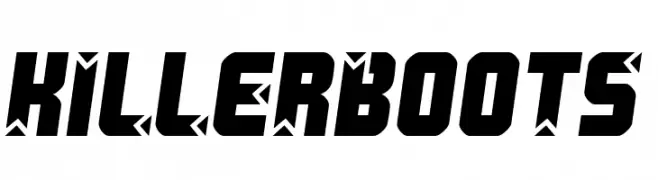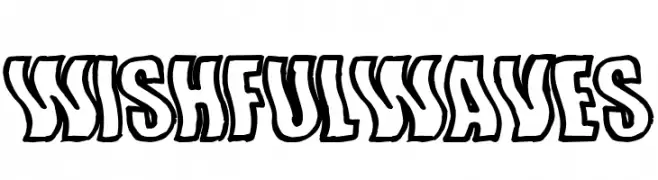
• Konspiracy Theory slant
A bold, slanted font with a geometric and condensed style.
• Konspiracy Theory
A bold, high-contrast font with tall, narrow characters and prominent serifs.
• Soft Sugar plain
A bold, playful font with a hand-drawn, energetic style.
• An ode to noone
A bold, dynamic font with a playful, hand-painted style.
• WishfulWaves
A bold, wavy font with a playful, cartoonish style.
• Grunt Reaper
A bold, distressed font with a grungy, hand-painted style.
• Noodle soup
A bold, hand-drawn font with a playful, graffiti-like style.
• Killer boots
A bold, angular font with a futuristic and edgy design.
• Acquaintance
A textured, distressed font with a chaotic, edgy style.
• Spaceboy
A bold, futuristic font with a three-dimensional outline and geometric shapes.